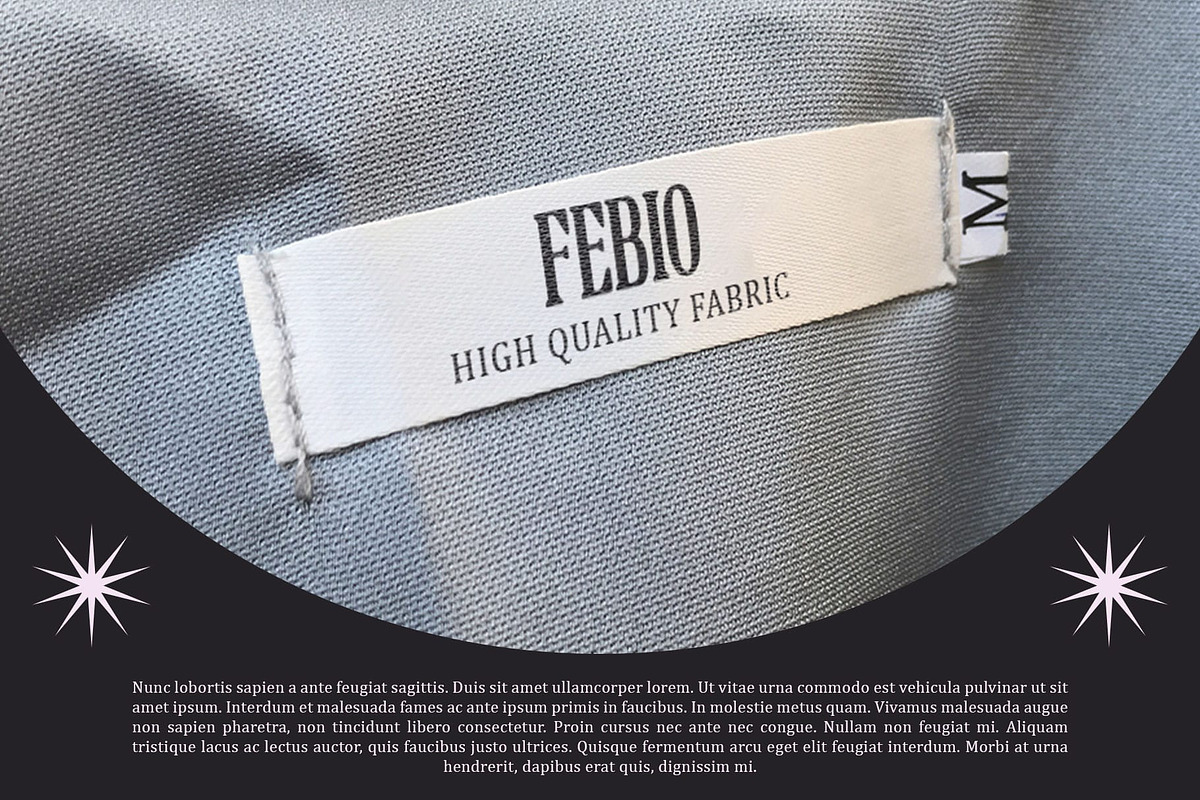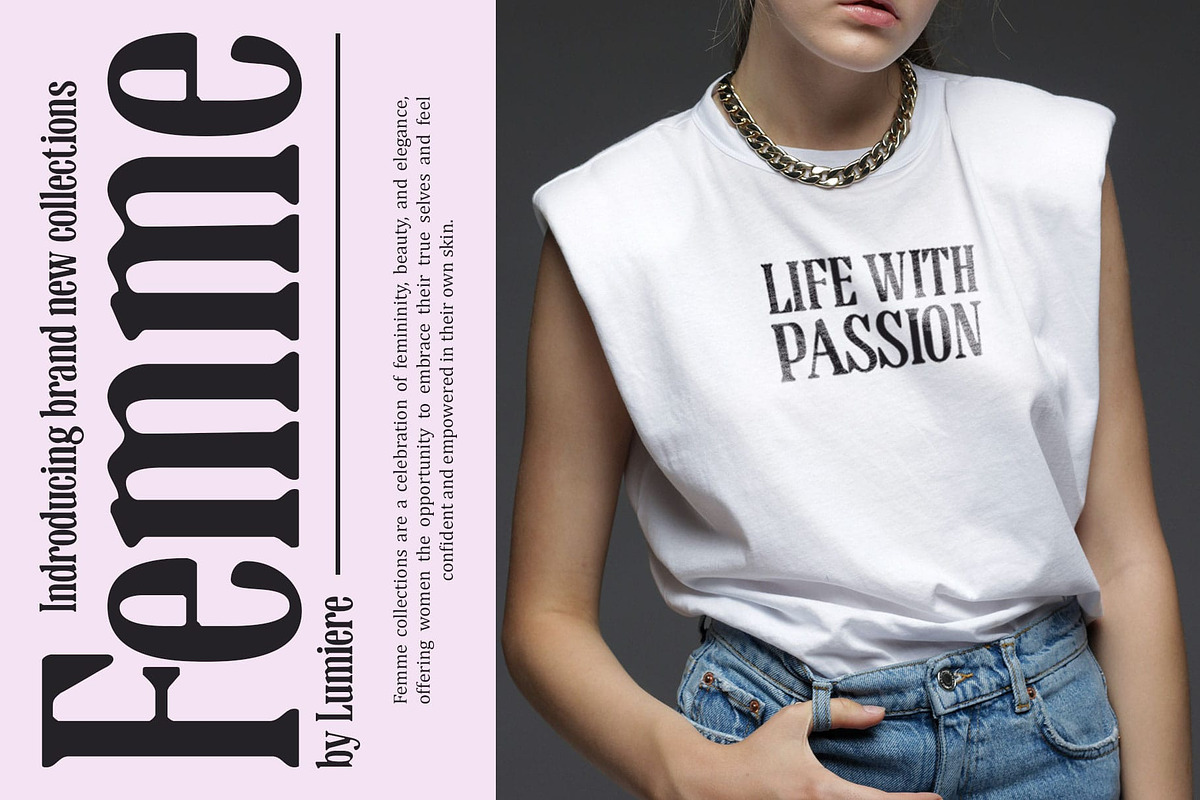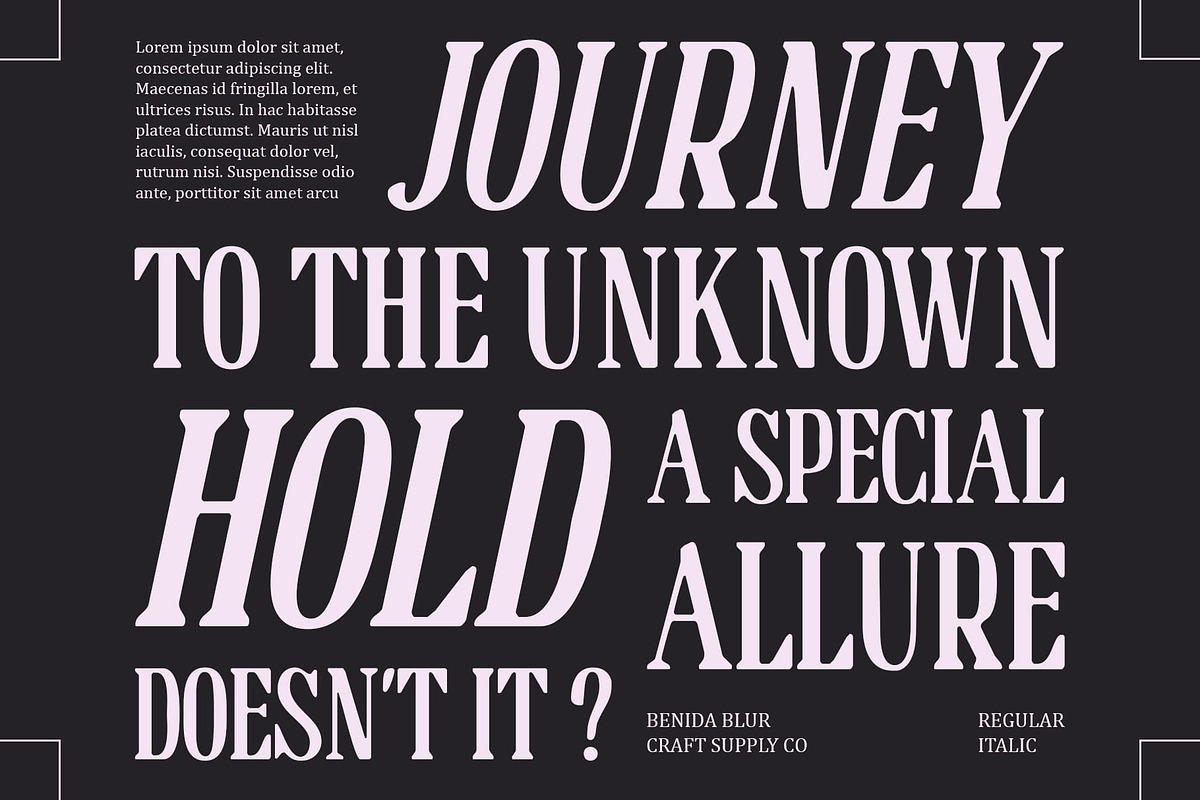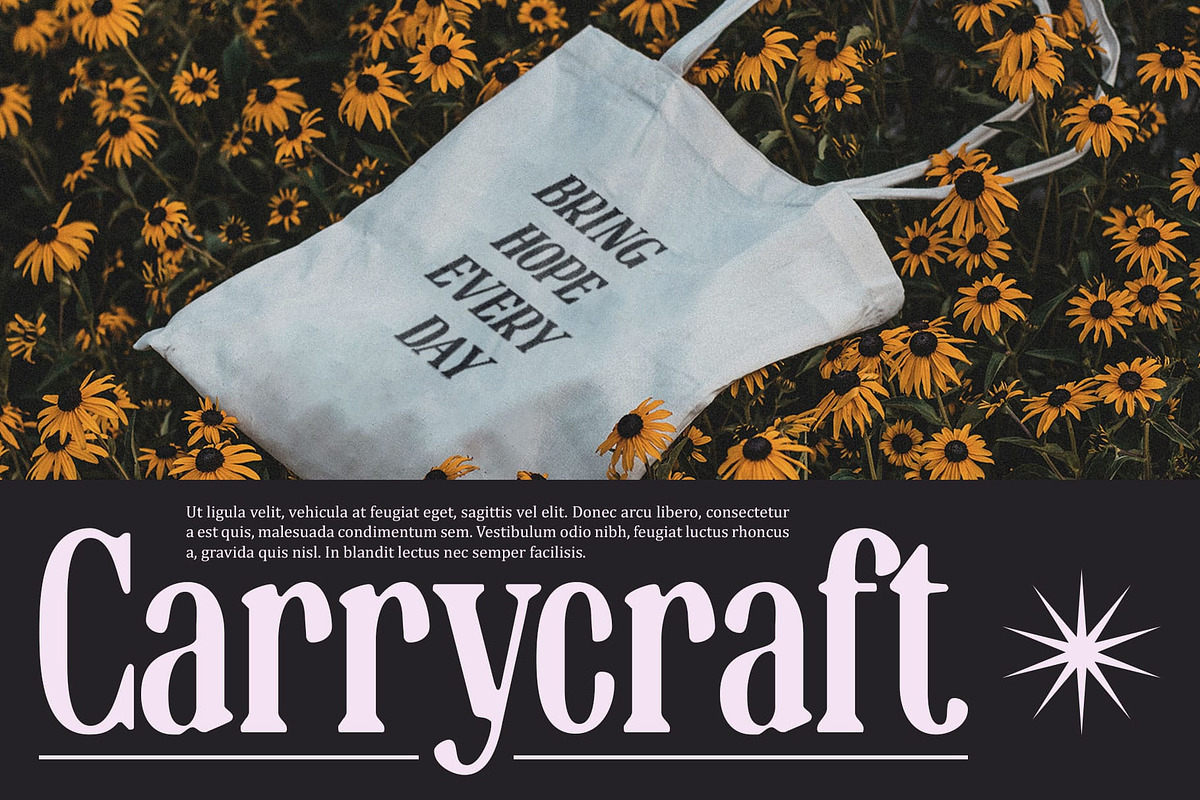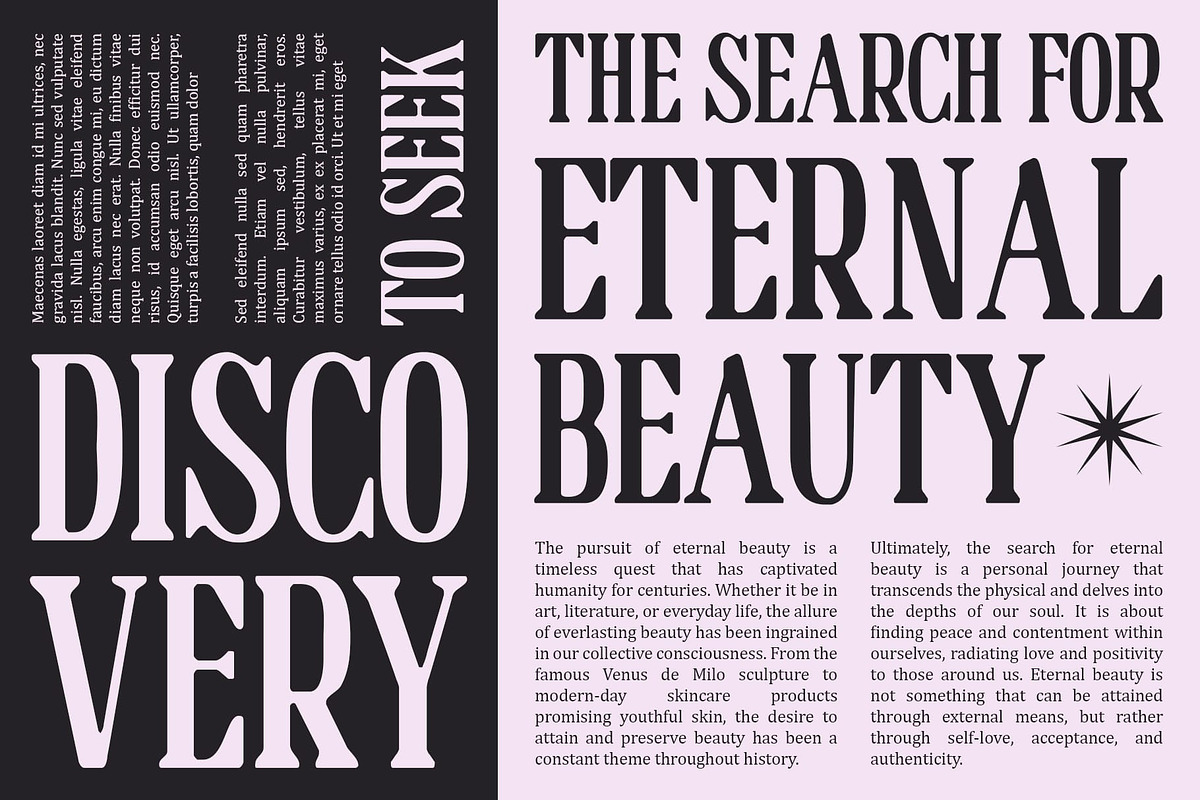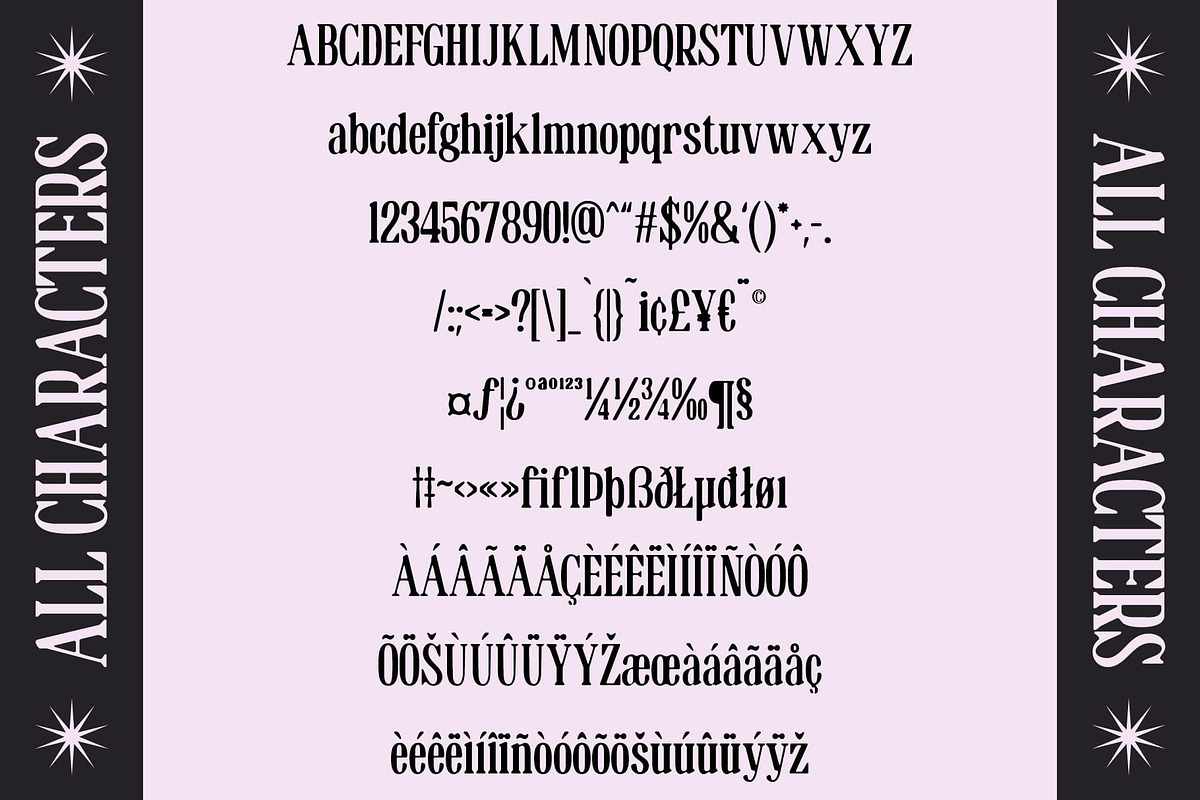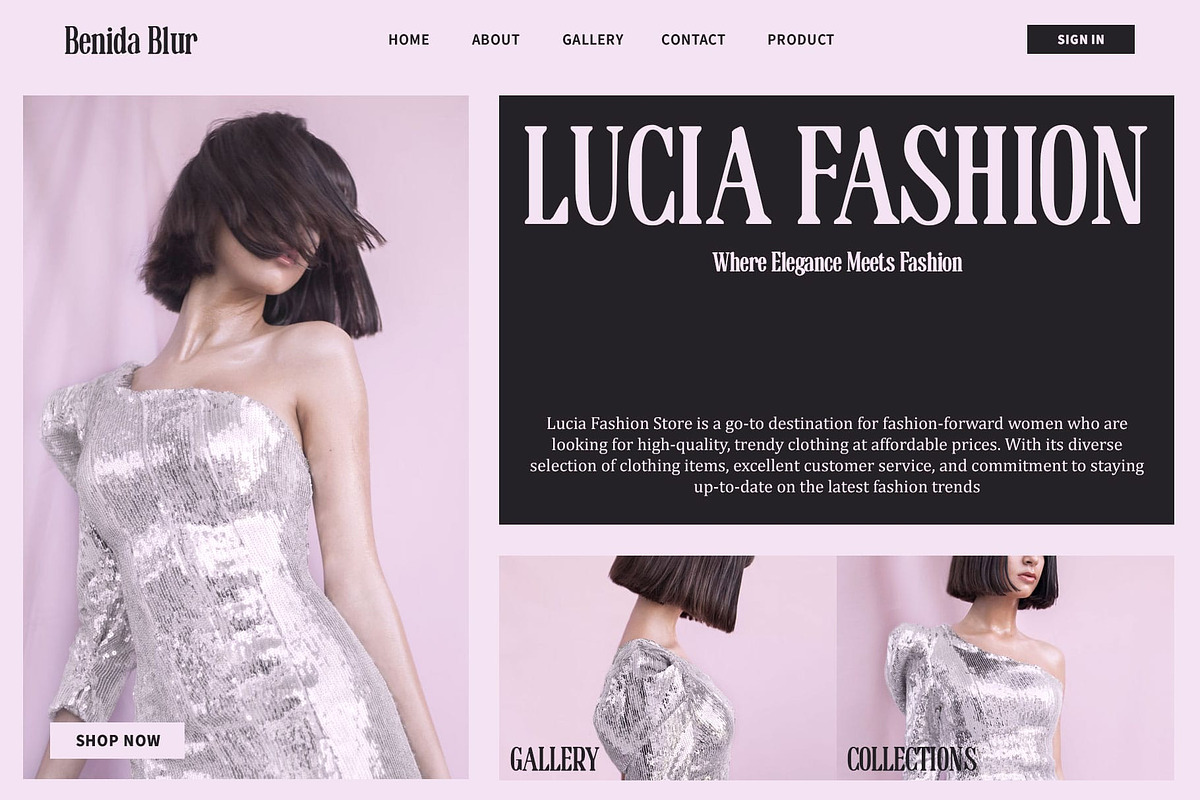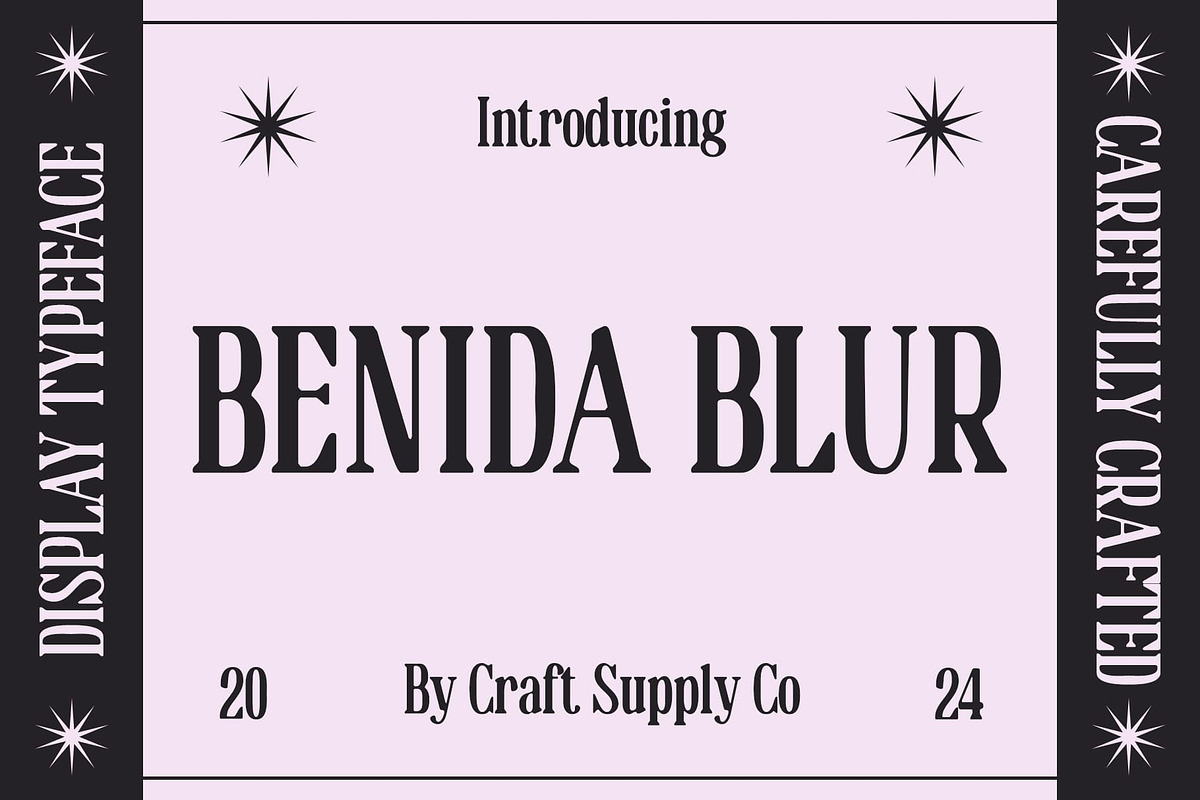
Benida Blur
Benida Blur: Condensed Elegance in the Blur
Condensed Blur Serif Font
Benida Blur is a condensed blur serif font, typically suitable for various designs that require a unique, intriguing, and slightly experimental look. This font adds a distinct touch and can be used to create standout and memorable designs.
Perfect for Unique Designs
With its condensed form and blur effect, Benida Blur Font is ideal for projects that demand a unique and captivating appearance. Whether used in editorial layouts, branding, or promotional materials, this font adds a sense of intrigue and sophistication to your designs.
Enhanced Distinction
Benida Blur Font prioritizes distinction, ensuring that your designs are both memorable and eye-catching. Its blur effect and condensed form create a dynamic and experimental look that resonates with viewers, making it perfect for projects that aim to be different.
Ideal for Experimental Projects
Whether you’re designing an avant-garde magazine cover, creating a modern brand identity, or developing a striking poster, this blurred font is the perfect choice for projects that require a unique and experimental look. Its distinct style ensures that your designs will always stand out and leave a lasting impression.
Add a touch of intrigue and elegance to your designs with Benida Blur Font and make your projects unforgettable.